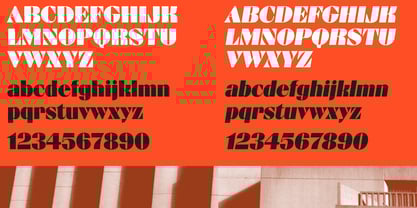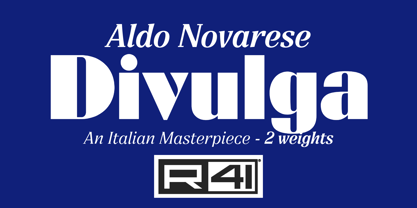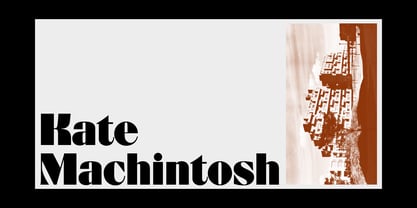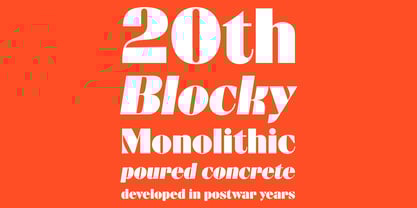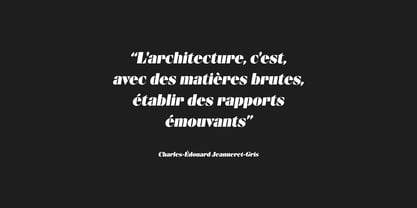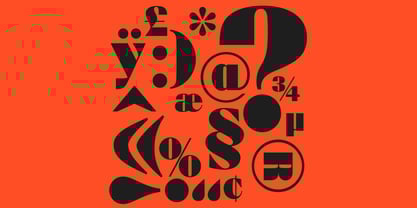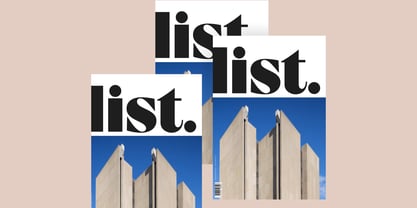
Divulga
The Divulga Font Family was designed by Aldo Novarese, Fulvio Bisca, Stefano Torregrossa and published by Reber R41. Divulga contains 2 styles and family package options. More about this family
Divulga is a typeface with an intense and deep color, ideal for titles and for creating elegant and legible contrast. Created by Aldo Novarese for Reber R41, this typeface is characterized by thin strokes and very narrow lines, giving the text a distinctive personality. Although it recalls, but does not derive from, the Bauhaus style, Divulga stands out for its cleanliness, clarity, and geometry, making it ideal for use in headlines, slogans, and other specific contexts. Its high visibility makes it perfect for emphasizing the tone of the message without sacrificing elegance and originality.